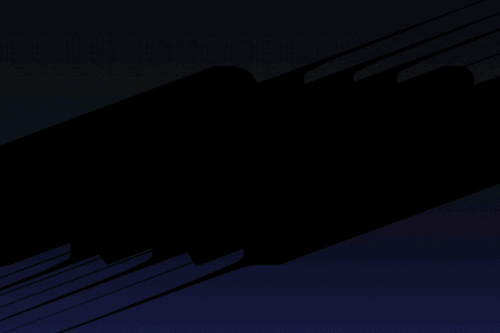
the typeface is created based on a single moment in time, following the sun's path in relation to the earth.
to tie the important moments in our lives to the words we type, knezo design studio created ‘diurne’, a customizable and always changing typeface that incorporates the specific place, date and time into the font. each character is formed by the shadow related to the sun’s position, making it possible for the words only to be formed when the sun is present in the sky. this corresponds to the typeface’s name ‘diurne’, that comes from the french word diurnal, meaning ‘during the day’. the shadows move through a range of varying angles, thicknesses, and lengths giving individuality to each font.
different styles can be created over the course of a single day
‘diurne’ relies on a system of design based on the motion of the sun, leaving room for a variety of styles to be created using the same steps. while the first iteration is a serif font, a different input to the system can yield different styles, such as sans serif, script, digital, and more.
sample text in three different weights: normal, thin and bold
we each have times in our lives which hold a special meaning. ‘diurne’ attempts to celebrate these moments by giving a subtle and meaningful way to remember them. the moment is forever engraved and celebrated each time you write with it or someone reads your typed message.
physical prototype of ‘diurne’
path of a single letter’s shadow as it moves through the day
resulting styles from the same location and date, but different times of the day
resulting styles from the same location and time, but different days of the year
resulting styles from the same date and time of day, but different locations
chart showing some of the effects of date, time, and location on the shape of letters